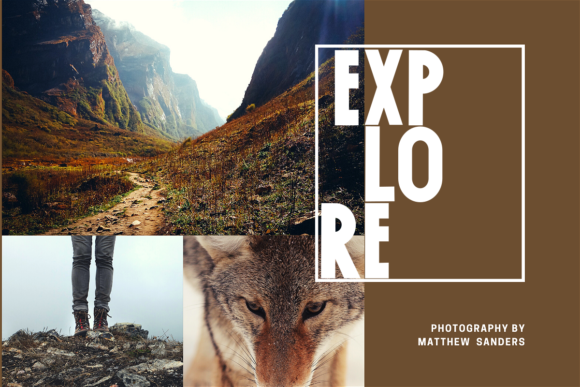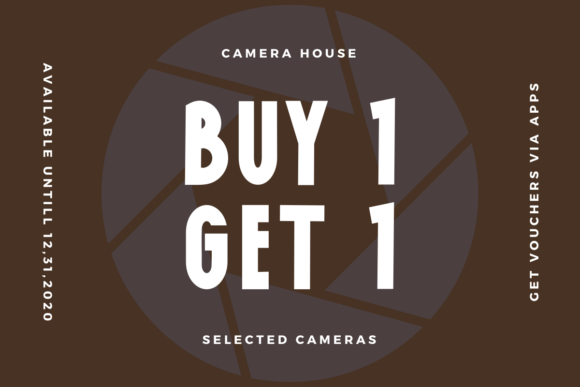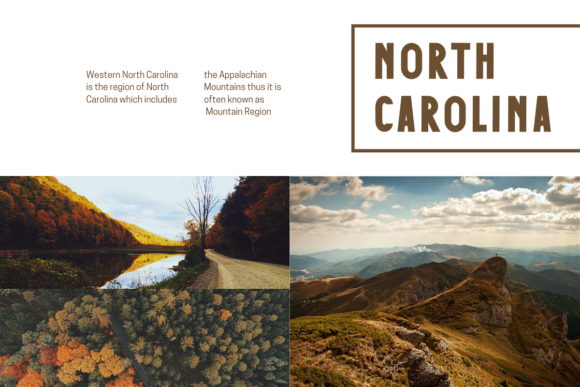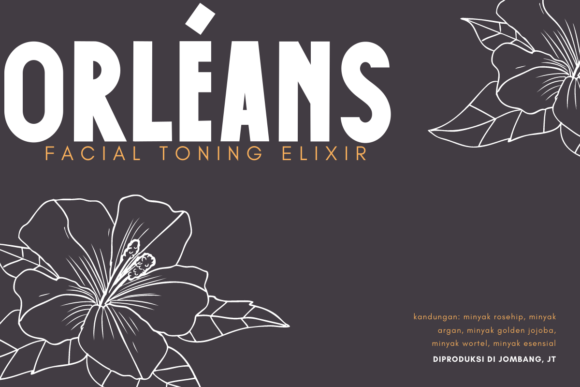
The Caffe Bold Font: A Game-Changer for Your Creative Projects
I’ll never forget the time I was working on a branding project for a trendy coffee shop. My client was adamant that they wanted a font that was bold, modern, and would make their logo stand out. I spent hours scouring through font libraries, but nothing seemed quite right. That was until I stumbled upon Caffe Bold. This simple yet striking sans serif font was exactly what I needed to bring my client’s vision to life.
An Honest Review of Caffe Bold
What I Love About Caffe Bold
- ✨ Its bold and modern aesthetic makes it perfect for headlines and titles
- ✅ It’s incredibly versatile and can be used for a wide range of projects, from branding and advertising to packaging and signage
- 💡 The font’s simple and clean design makes it easy to read, even at smaller sizes
- 🎉 It’s perfect for creative hobbyists and professionals alike, making it a great addition to any design toolkit
While Caffe Bold is an excellent font, it’s not without its quirks. For example:
- 🤔 It can be a bit too bold for certain applications, such as body text or captions
- ⚠️ Some users may find the font’s simplicity a bit too plain, lacking the flair of other fonts
The Designer Inspiration Behind Caffe Bold
Caffe Bold was designed with the modern designer in mind. Its creator, a freelance typographer, was inspired by the clean lines and simplicity of urban coffee culture. The font’s bold aesthetic and versatility make it perfect for a wide range of creative projects.
| Font Name | Caffe Bold Font |
| Author | Deedeetype |
| What is Caffe Bold? | Caffe Bold is a simple bold sans serif font perfect for headlines, titles, and creative projects. |
| Is Caffe Bold suitable for body text? | While Caffe Bold is a great font, it’s not ideal for body text due to its bold aesthetic. It’s best used for headlines and titles. |
| Is Caffe Bold available in different weights? | Currently, Caffe Bold is only available in a single bold weight. However, its simplicity and versatility make it easy to use in a variety of contexts. |